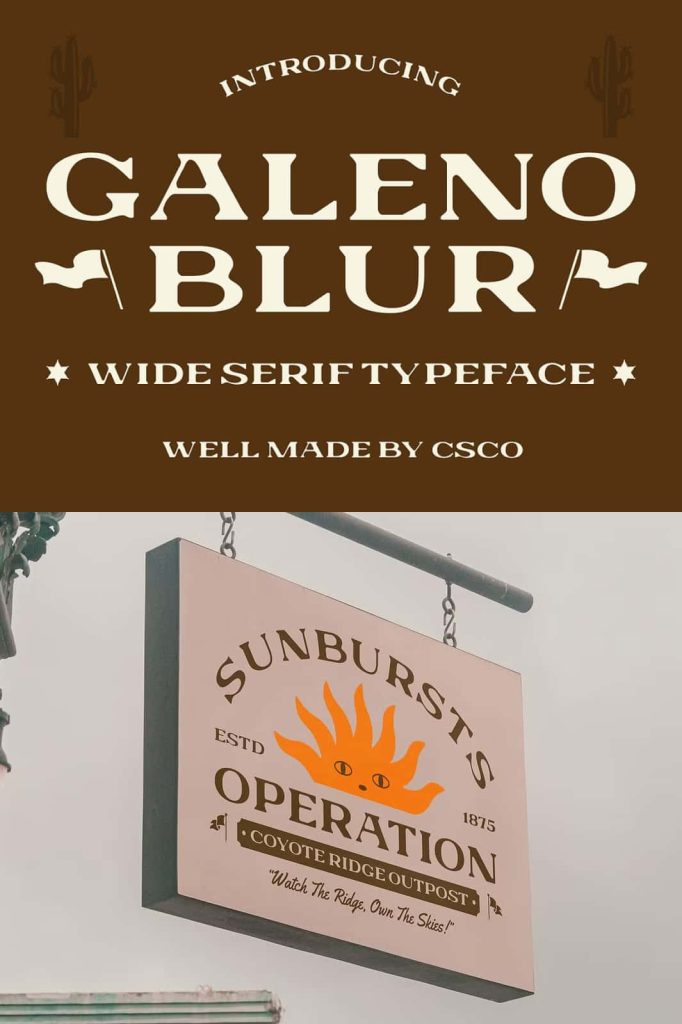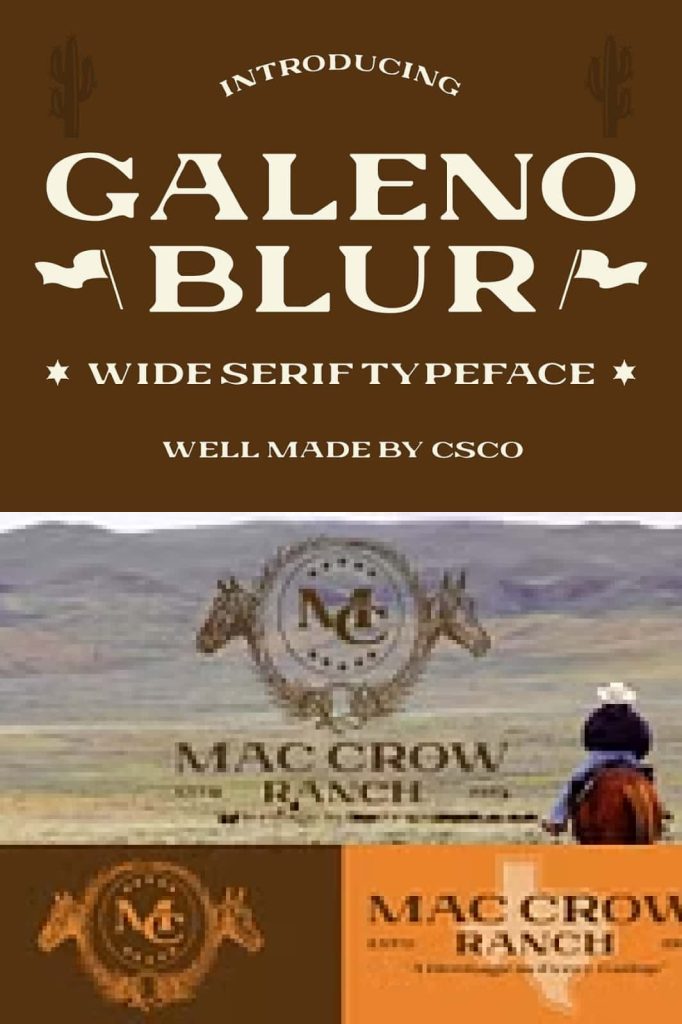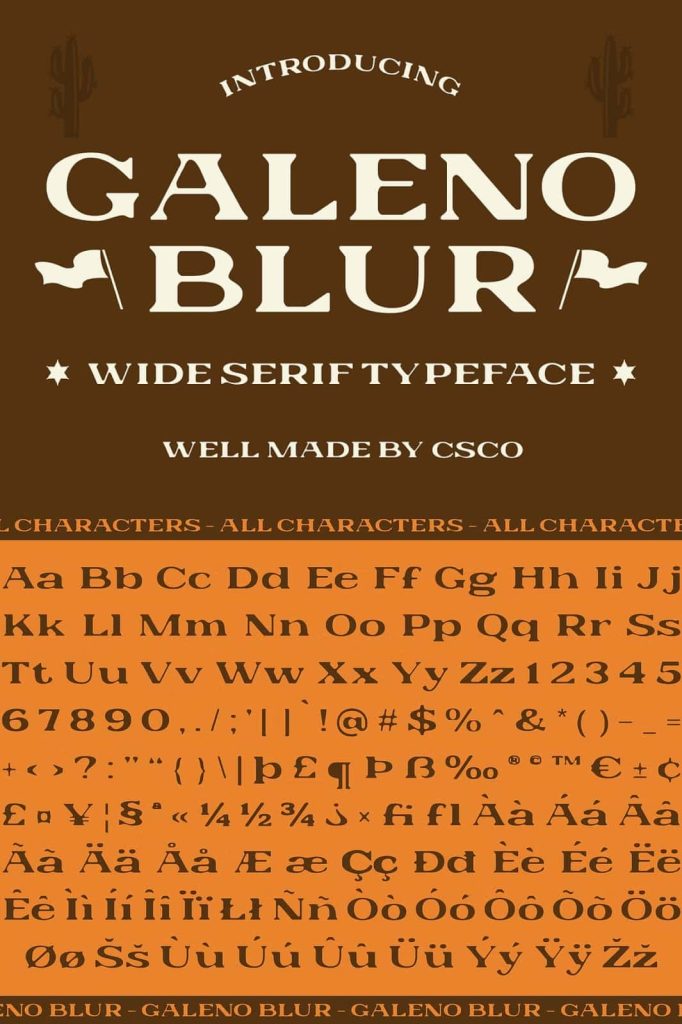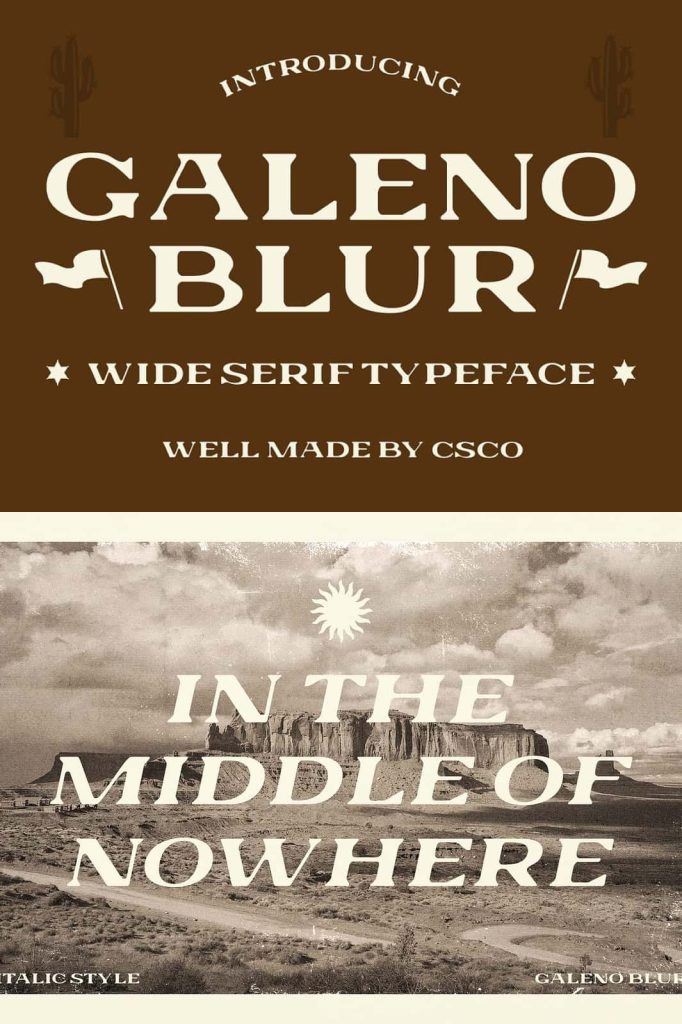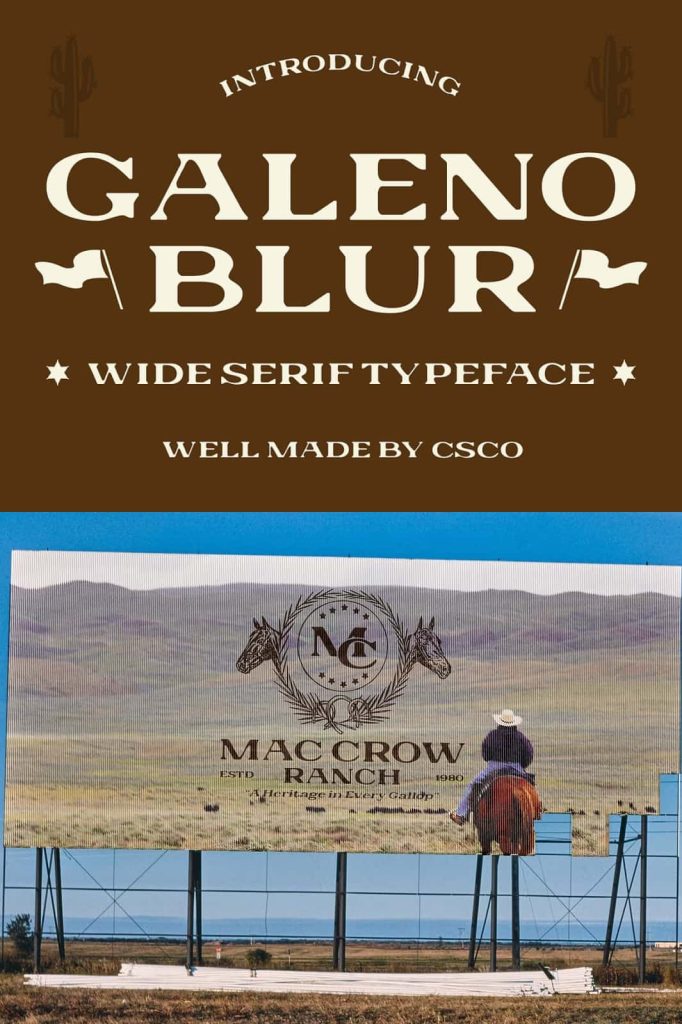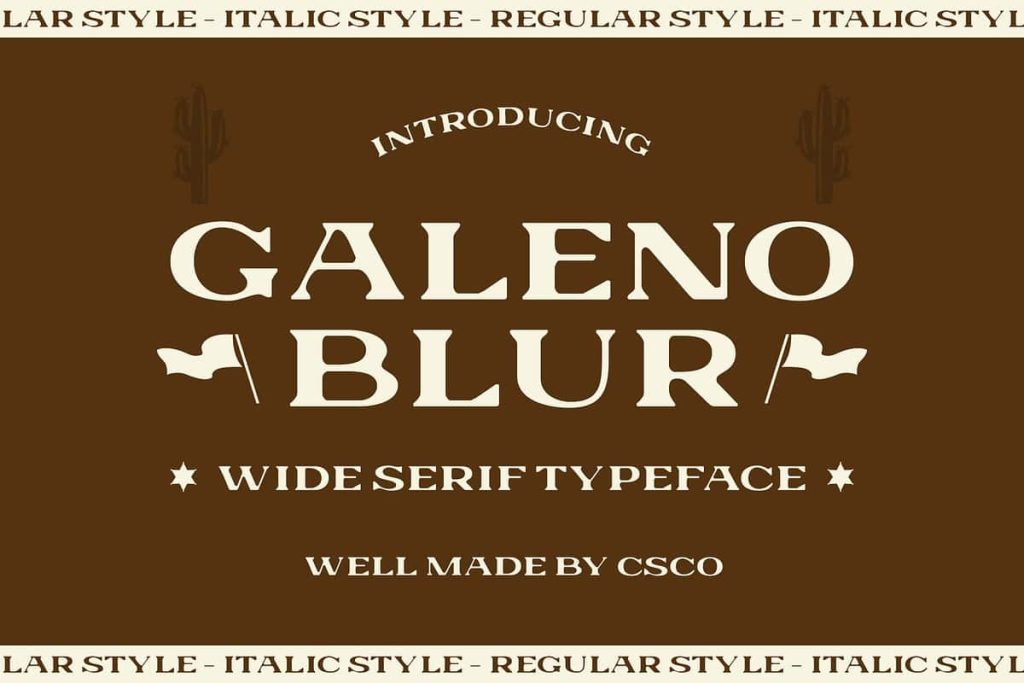
Galeno Blur Font: A Retro Classic with a Modern Twist
Evoking 90s Nostalgia with a Modern Edge Galeno Blur is a classic serif font that draws inspiration from the bold typography of the 1990s. Its wide, expanded letterforms and strong presence instantly evoke a sense of retro nostalgia, reminiscent of the playful, daring designs that defined the decade. This font celebrates the power of 90s typography while adding a contemporary flair that keeps it fresh and exciting.